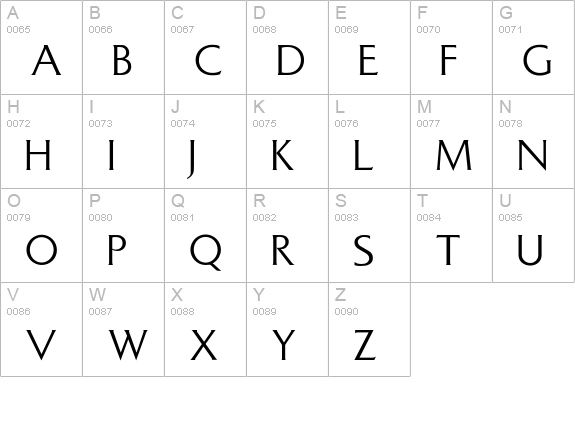
BasileaFont is a stylish and elegant typeface that exudes sophistication and charm. With its clean lines and modern aesthetic, this font is perfect for a wide range of design projects, from branding to editorial design. The sleek letterforms of BasileaFont are versatile and can adapt to both digital and print applications with ease. What sets BasileaFont apart is not only its timeless design but also the fact that it is available for free download at FontsMarket.com. This means that designers and creatives can easily access this high-quality font without any cost, making it a valuable addition to their font library. Whether you're working on a logo, website, or poster design, BasileaFont offers a touch of sophistication and class that will elevate your projects to the next level. Download BasileaFont today and discover the versatility and beauty of this stunning typeface.